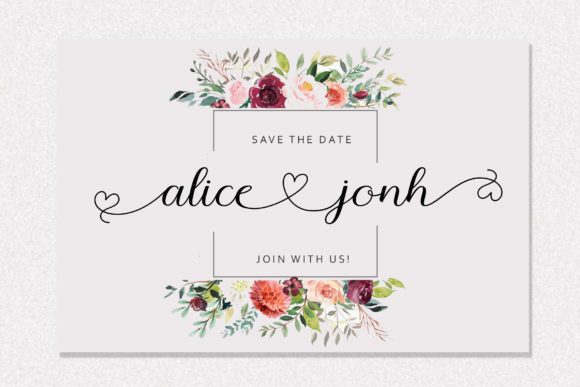
Dino Lena Font: A Delicate and Slim Script Font for Creative Projects
In the world of typography, fonts play a crucial role in conveying messages, expressing emotions, and creating visual identities. Among the numerous fonts available, Dino Lena Font stands out as a delicate and slim script font that has gained popularity among designers, artists, and creative professionals. In this article, we will explore the features, benefits, and uses of Dino Lena Font, and why it has become a go-to choice for various design projects.
What is Dino Lena Font?
Dino Lena Font is a beautifully crafted script font that exudes elegance, sophistication, and refinement. Its delicate and slim strokes make it perfect for designs that require a touch of luxury, creativity, and personality. The font is designed to be versatile, making it suitable for a wide range of applications, from product packaging and branding projects to magazine covers, social media graphics, and wedding designs.
Key Features of Dino Lena Font
PUA Encoding
One of the standout features of Dino Lena Font is its PUA (Private Use Area) encoding. This means that the font includes a range of glyphs and swashes that can be easily accessed and used to create unique and creative designs. With PUA encoding, designers can effortlessly navigate through the font’s extensive library of characters, making it easier to craft stunning visual content.
Delicate and Slim Strokes
Dino Lena Font’s delicate and slim strokes are what set it apart from other script fonts. The font’s slender lines and curves create a sense of elegance and refinement, making it perfect for designs that require a touch of sophistication. Whether you’re working on a luxury brand’s packaging or a wedding invitation, Dino Lena Font’s delicate strokes will add a level of refinement to your design.
Versatility
Dino Lena Font is an incredibly versatile font that can be used for a wide range of design projects. Its slim and delicate strokes make it suitable for:
- Product packaging: Add a touch of luxury to your product packaging with Dino Lena Font.
- Branding projects: Create a unique and memorable brand identity with this elegant script font.
- Magazine covers: Use Dino Lena Font to create eye-catching magazine covers that exude sophistication.
- Social media graphics: Add a touch of elegance to your social media graphics, posts, and stories.
- Wedding designs: Make your wedding invitations, programs, and decorations truly special with Dino Lena Font.
Benefits of Using Dino Lena Font
Elegance and Sophistication
Dino Lena Font brings an unparalleled level of elegance and sophistication to any design project. Its delicate and slim strokes create a sense of refinement, making it perfect for designs that require a touch of luxury.
Easy to Use
With PUA encoding, Dino Lena Font is incredibly easy to use, even for designers who are new to script fonts. The font’s extensive library of glyphs and swashes can be easily accessed, making it simple to create stunning visual content.
Unique and Creative Designs
Dino Lena Font’s extensive library of glyphs and swashes allows designers to create unique and creative designs that stand out from the crowd. With this font, you can add a personal touch to your designs, making them truly special and memorable.
Accessing Glyphs and Swashes
To access the font’s extensive library of glyphs and swashes, use the PUA encoding feature. This will allow you to navigate through the font’s library and select the characters you need to create your design.
Tips and Tricks
Here are a few tips and tricks to help you get the most out of Dino Lena Font:
- Experiment with different font sizes and colors to create visual interest.
- Use the font’s glyphs and swashes to add a personal touch to your designs.
- Combine Dino Lena Font with other fonts to create a unique and creative visual identity.
Dino Lena Font is a delicate and slim script font that has captured the hearts of designers and creative professionals. With its PUA encoding, delicate strokes, and versatility, this font is perfect for a wide range of design projects. Whether you’re working on a luxury brand’s packaging or a wedding invitation, Dino Lena Font is sure to add a touch of elegance and sophistication to your design. So why wait? Download Dino Lena Font today and start creating stunning visual content that stands out from the crowd!